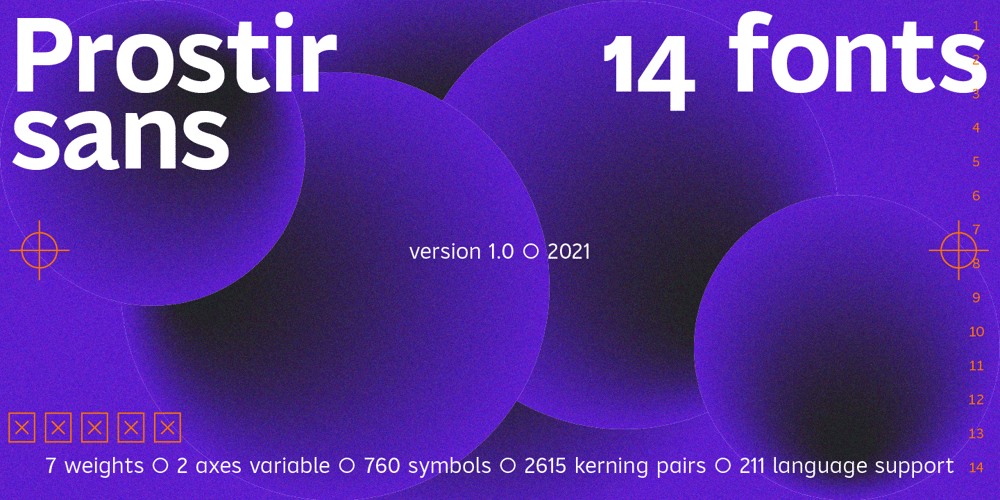
Prostir Sans
Prostir Sans font
Prostir Sans Font Family was designed by Maksym Kobuzan and published by Kobuzan. Prostir Sans contains 15 styles and family package options. Prostir Sans is a powerful typeface of the humanistic sans serif. He strives to be a “workhorse” that does almost any job without unnecessary problems, while remaining expressive enough. Has large x-heights and small ink traps. The typeface looks emotional and feels free, combining smooth curves and contrasting connections.It consists of 2 conditional parts — Basic and Display, which differ in the thickness of diacritical symbols and additional elements. This contrast adds unusual rhythm and liveliness. It has 7 grades in weight and and supports variable, adjustable on two axes, which allows you to fine-tune the desired style with sliders. Features:– Total glyph set: 753 glyphs;– 14 styles (7 weights x 2 widths);– Support 210+ languages;– Latin Extended;– Cyrillic Basic + Bulgarian letters;OpenType features:– Proportional, oldstyle, circled, tabular numerals, superiors, fractions;– Punctuations and symbols;– Arrows;– Stylistic sets;– Ligatures;– Case-sensitive forms.